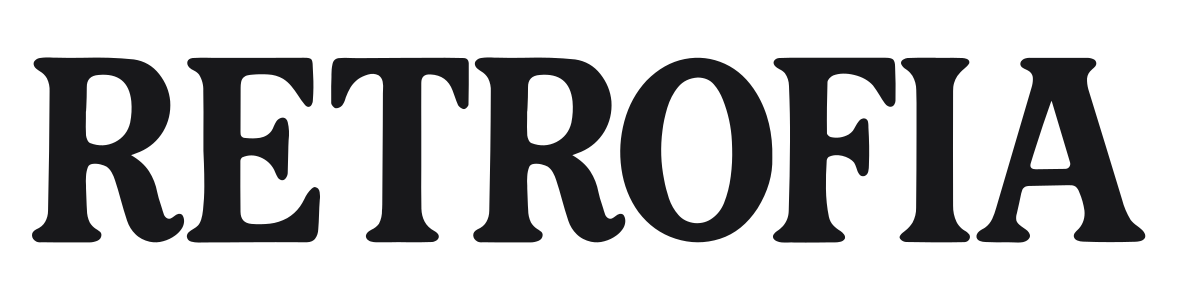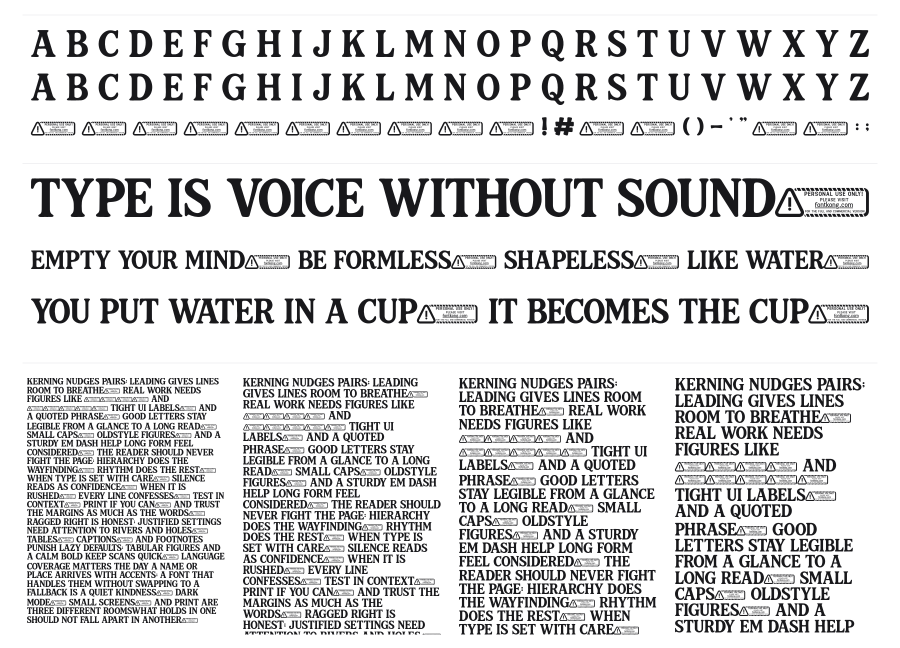
Retrofia
Retrofia is a bold retro serif with high stroke contrast and generously wide proportions that command attention at large sizes. The sharp bracketed serifs and thick-thin rhythm give it a polished, vintage-editorial quality rooted in mid-century design. It works across upscale branding, editorial headers, and poster typography wherever a confident classic serif is needed.